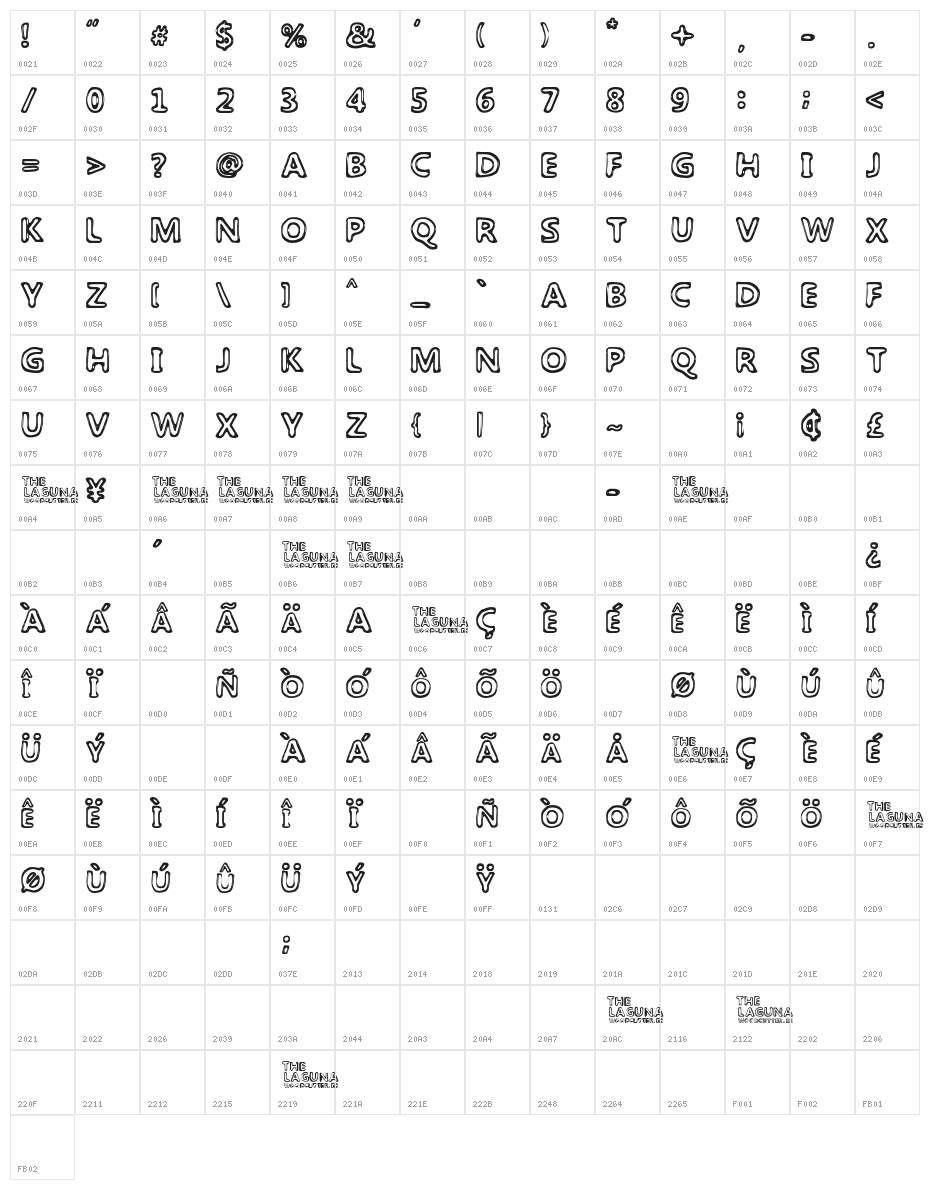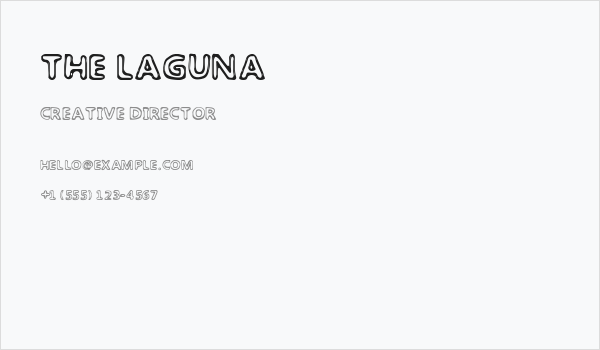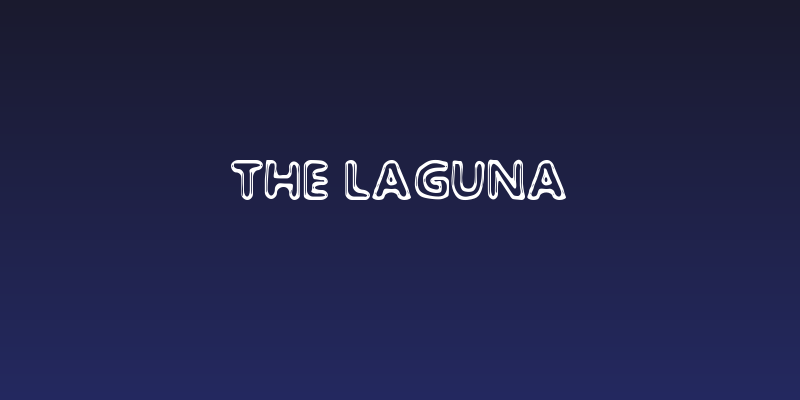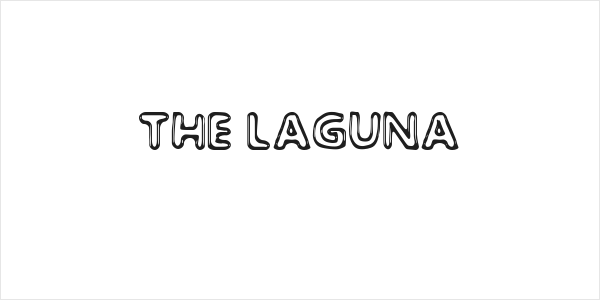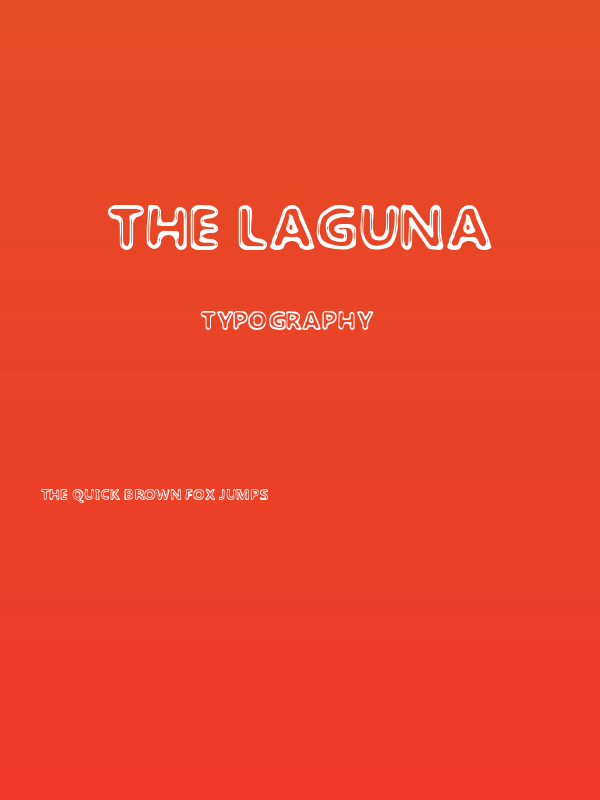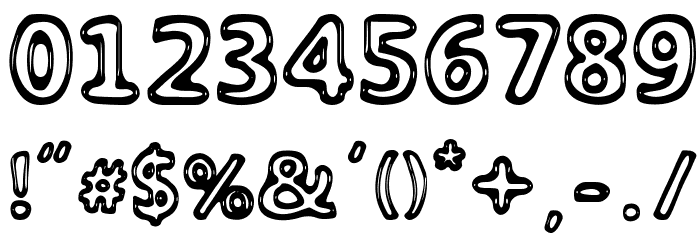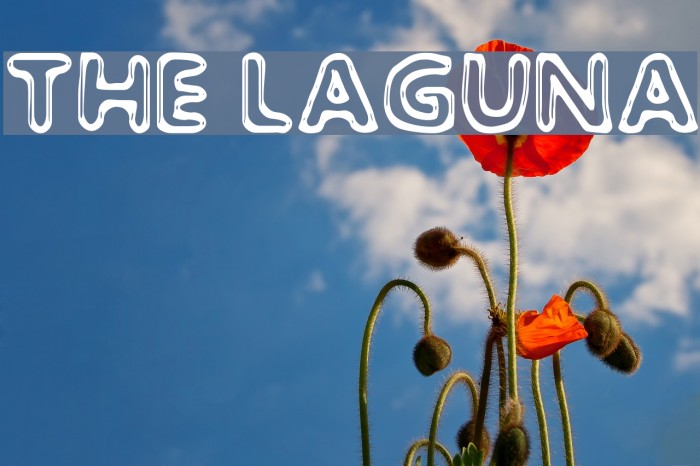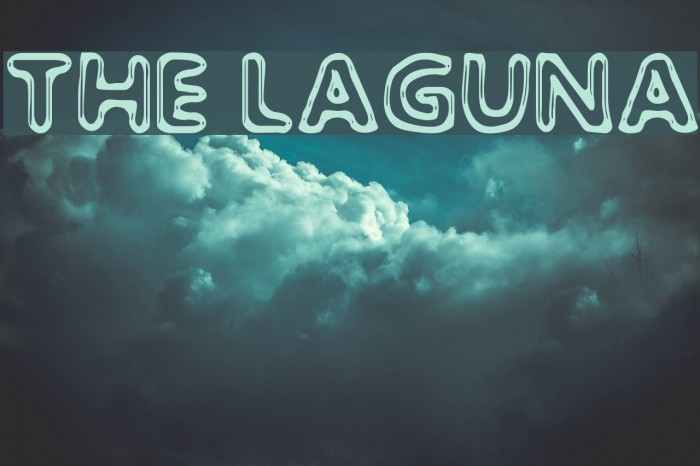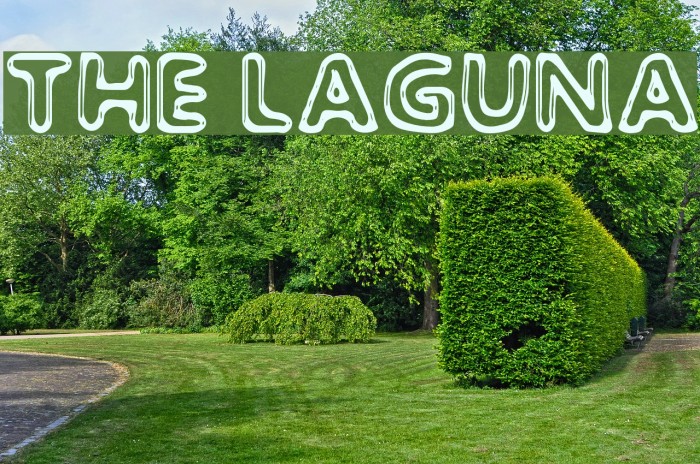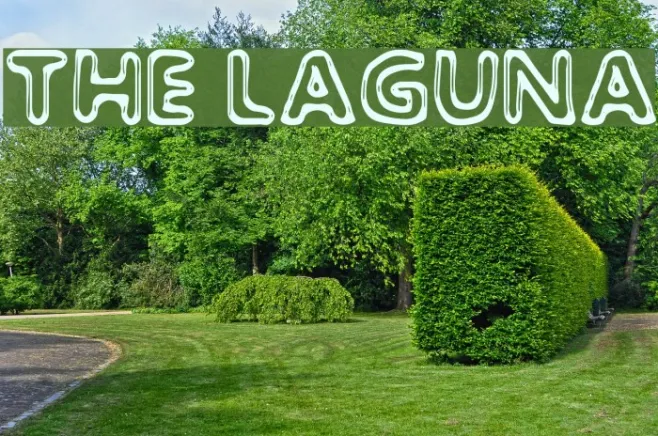
The Laguna Font
The Laguna Description
This font features a playful and bold design with a thick outline that gives each character a three-dimensional appearance. The letters are uppercase and lowercase, with a consistent stroke width that adds to its boldness. The style is reminiscent of comic or cartoon lettering, making it suitable for designs that require a fun and informal touch. The numbers and special characters follow the same design principles, ensuring a cohesive look across all elements. The font's unique style makes it stand out, ideal for projects that need to capture attention with a lively and dynamic feel.
| Overall Style | Playful, Comic |
| Proposed Projects | Ideal for comic books, children's books, playful branding, and eye-catching posters. |